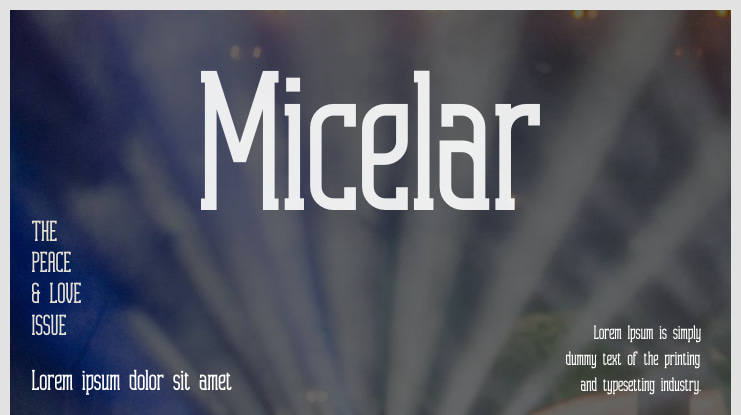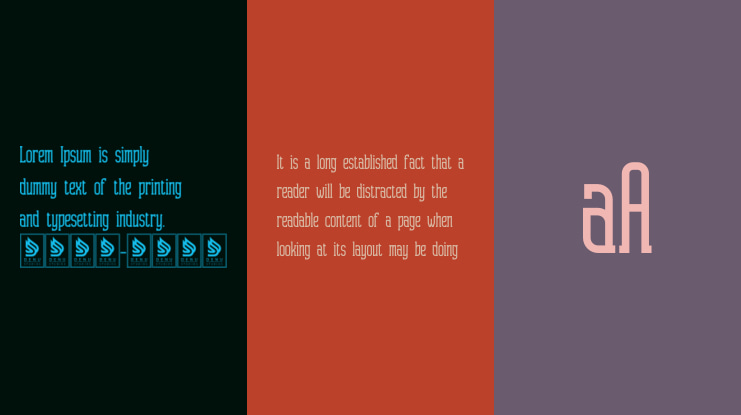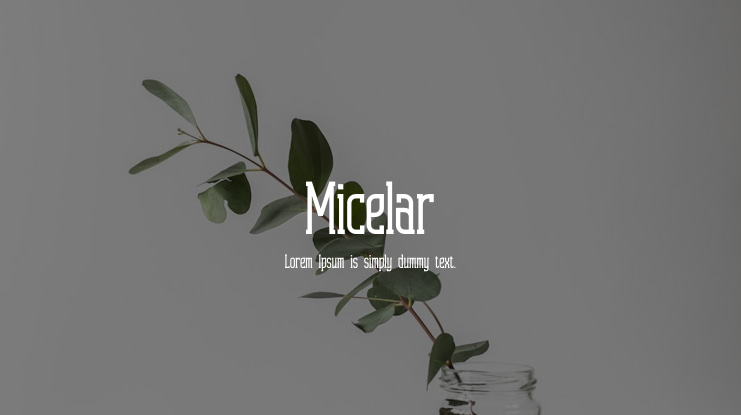
**Micelar | Display Slab Serif**
Micelar is an ideal font choice for an array of projects including logos, branding, homeware designs, product packaging, mugs, quotes, posters, shopping bags, t-shirts, book covers, business cards, invitations, greeting cards, labels, photography, watermarks, special events, and any other creative undertaking that calls for a Display Slab Serif style.